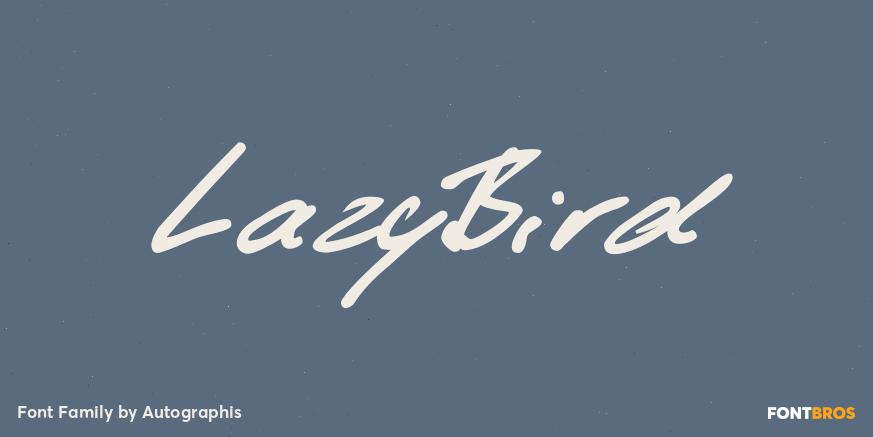
HomeFont BrosHandwrittenLazyBird Handwritten LazyBird FacebookXPinterestWhatsApp 1 of 1 About LazyBird is a script with a slick, lazy character.  DOWNLOAD ON FONT BROSThis font is sold and delivered by Font Bros. Font Canyon may earn a commission if you buy through this link. People also explored Canvas Red Bella Canvas 3001 Cool Mockup My Boy Font New Magnetic Font Blade Rush Font The Heart of Everything Font Geisya Font Vacay Font Shady Lane Font Ragtime Gal JNL Font 284 0 TagsLazyBird Font Previous articleDave Gibbons LowerNext articleFilmotype Mansfield LEAVE A REPLY Cancel reply Comment: Please enter your comment! Name:* Please enter your name here Email:* You have entered an incorrect email address! Please enter your email address here Website: Save my name, email, and website in this browser for the next time I comment. Personal Use Free Eaglese Personal Use Free Read more about this font Laneway Personal Use Free Read more about this font Vanchrome Personal Use Free Read more about this font DangeRNighT Font Personal Use Free Read more about this font BLOG Best Fonts for T-Shirt Design – Top 2025 Picks In 2025, t-shirt design has become more than just fashion—it's a form of self-expression. Whether you're... To increase your work productivity, choose the most readable fonts. How to Install and Use Fonts on Windows, macOS, and Web Projects Transform Your Website: Elevate Your Typography with 7 Best Web Font Generators